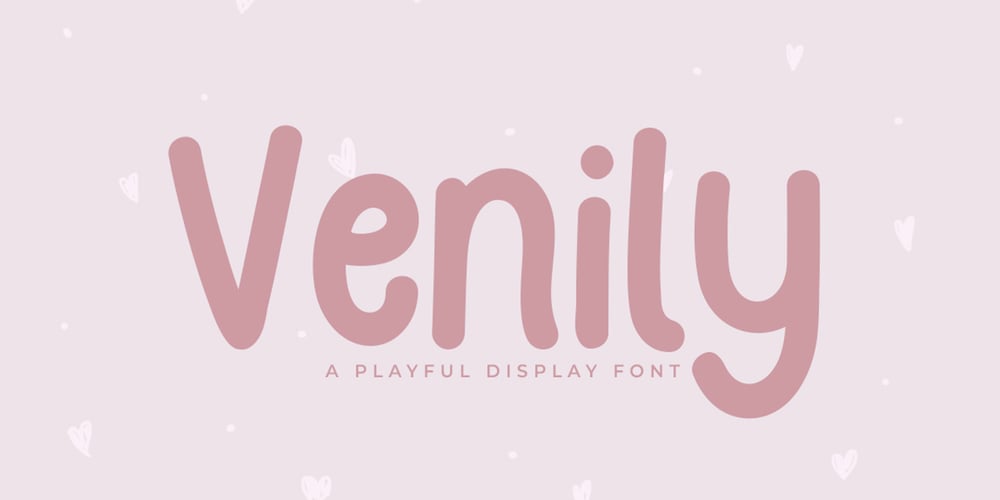
Venily Font Family was designed by Syaf Rizal and published by Khurasan. Venily contains 1 styles and family package options. Introducing Venily – a playful display font that is very fresh and unique style handmade. Venily Typeface is perfectly suited to logo, stationery, poster, apparel, branding, wedding invitation, card, tagline, layout design, and much more !!